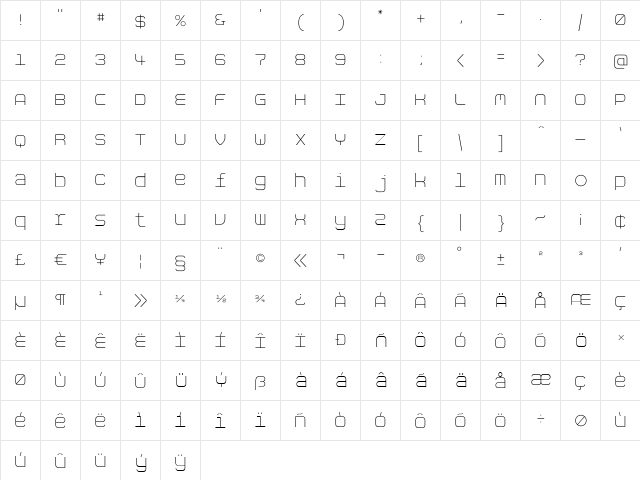
Aspirin-Refill Regular
Design Context for Aspirin-Refill Typeface
Aspirin-Refill offers clean, dependable letterforms without strong stylistic allegiance, making it a practical choice for designers who need flexibility.